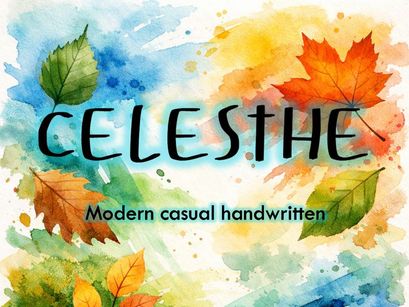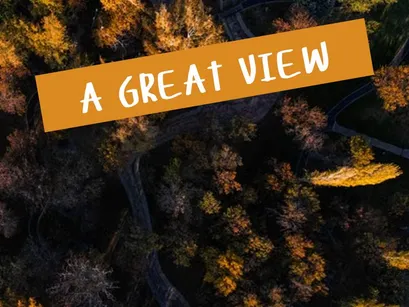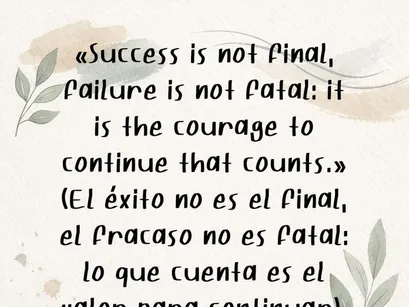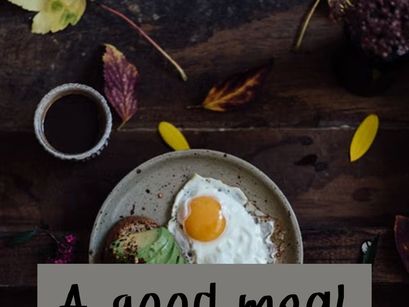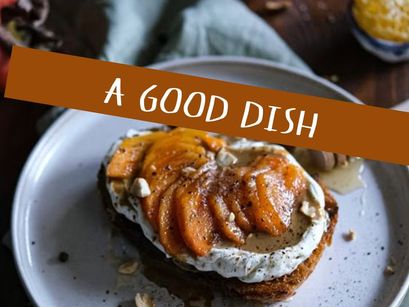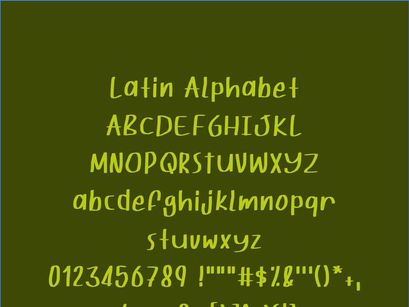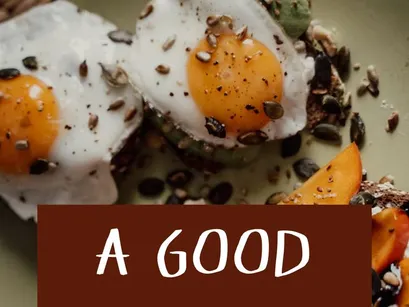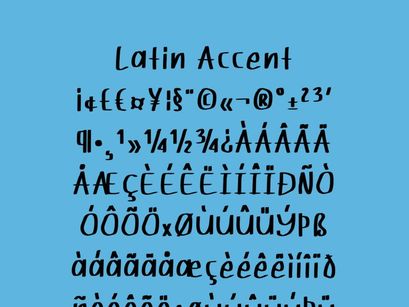
CELESTHE is a modern, handcrafted typeface featuring soft, expressive strokes, inspired by the fluidity of brushwork and color harmony. Its casual handwritten style blends elegance with a natural feel, making it perfect for branding, planners, packaging, inspirational quotes, and digital projects with a creative soul.
• Modern, artistic style
• Fluid, legible lettering
• Ideal for visual projects and digital lettering